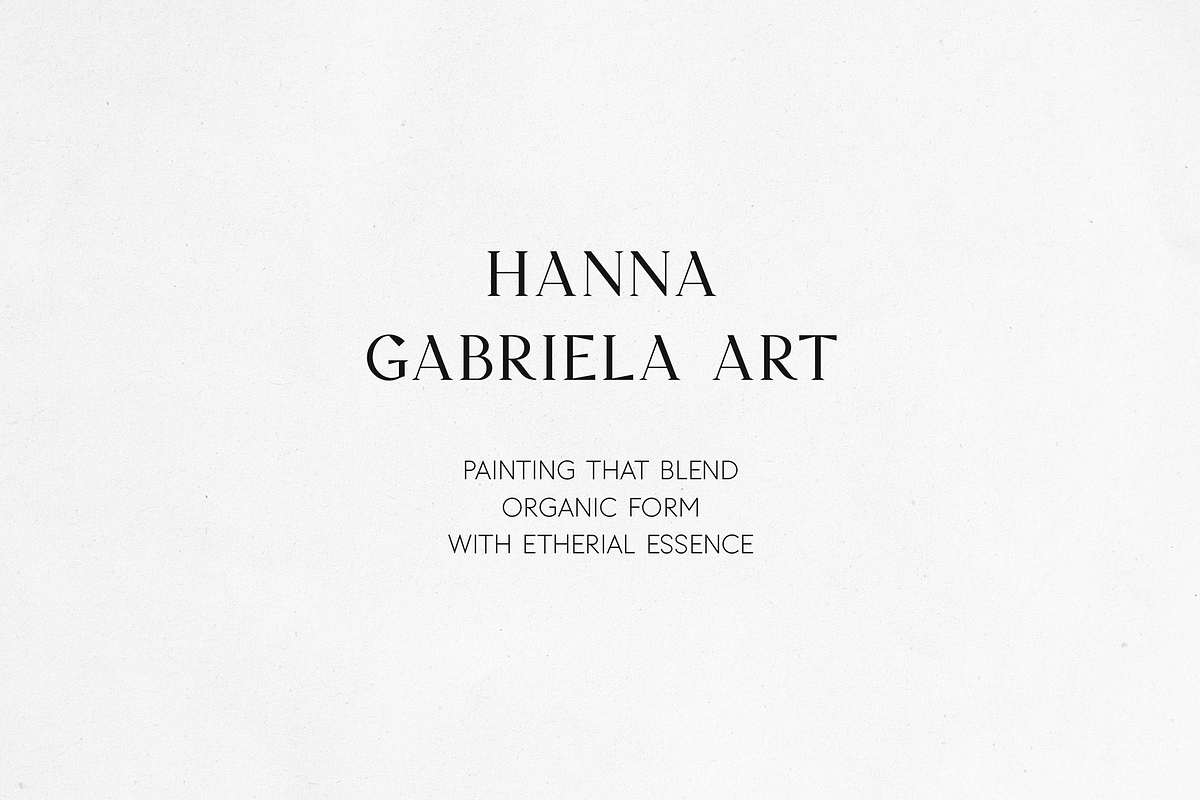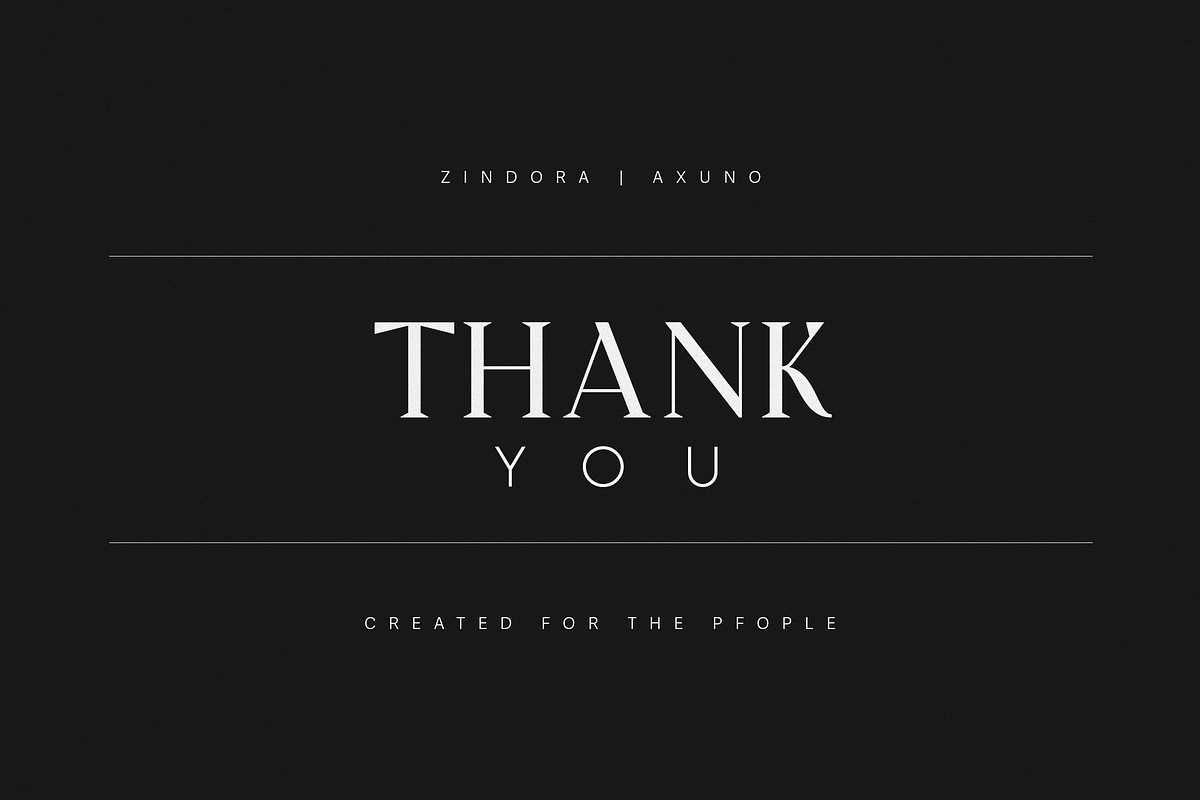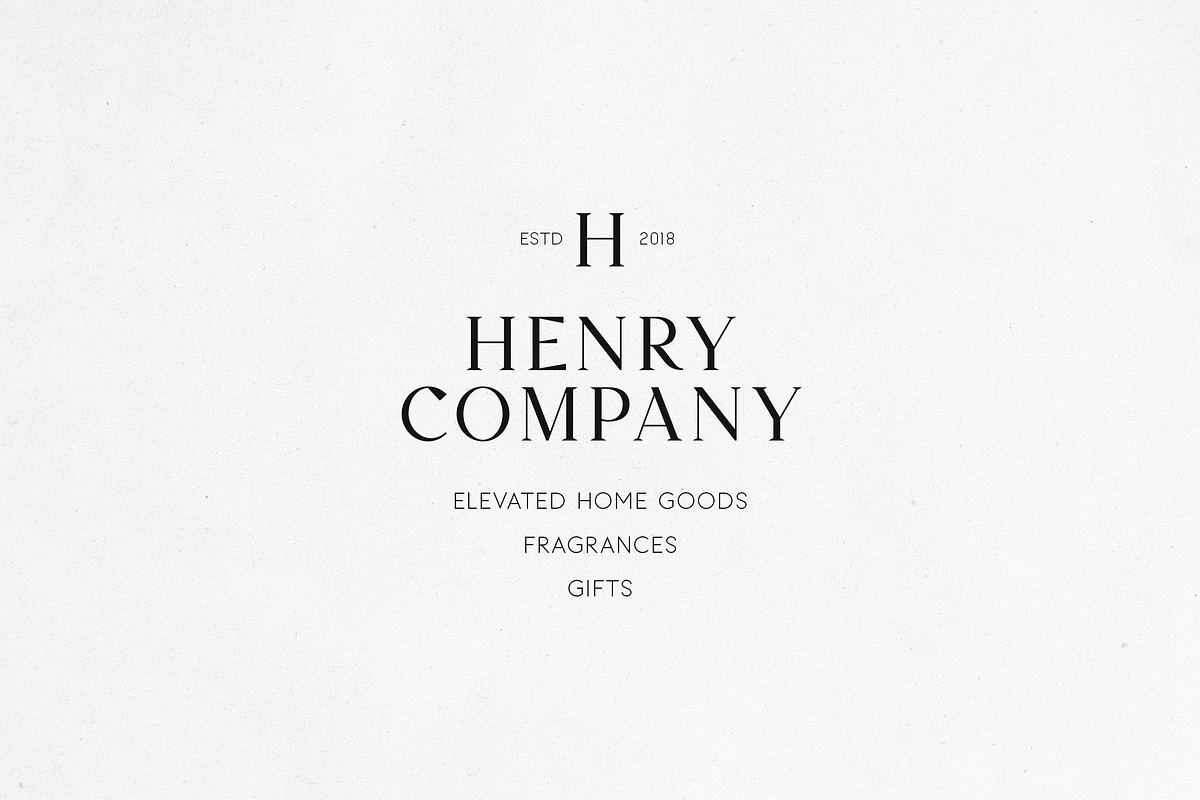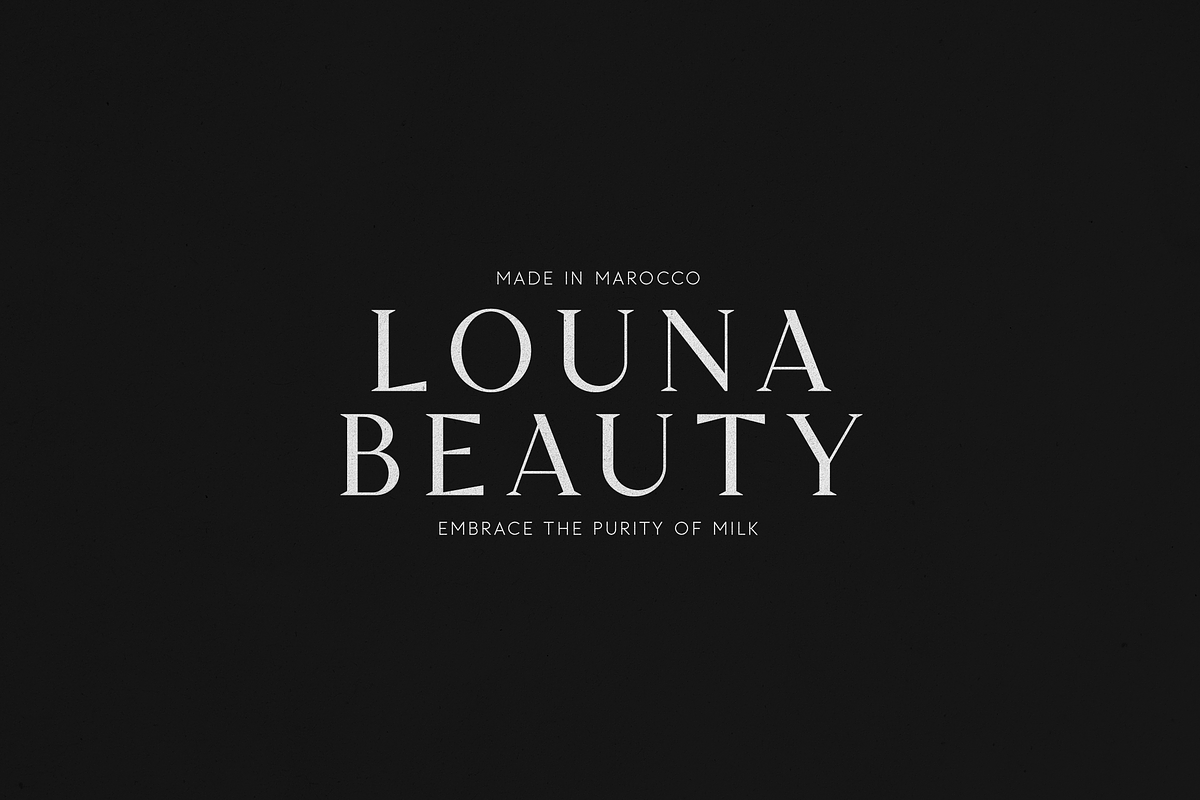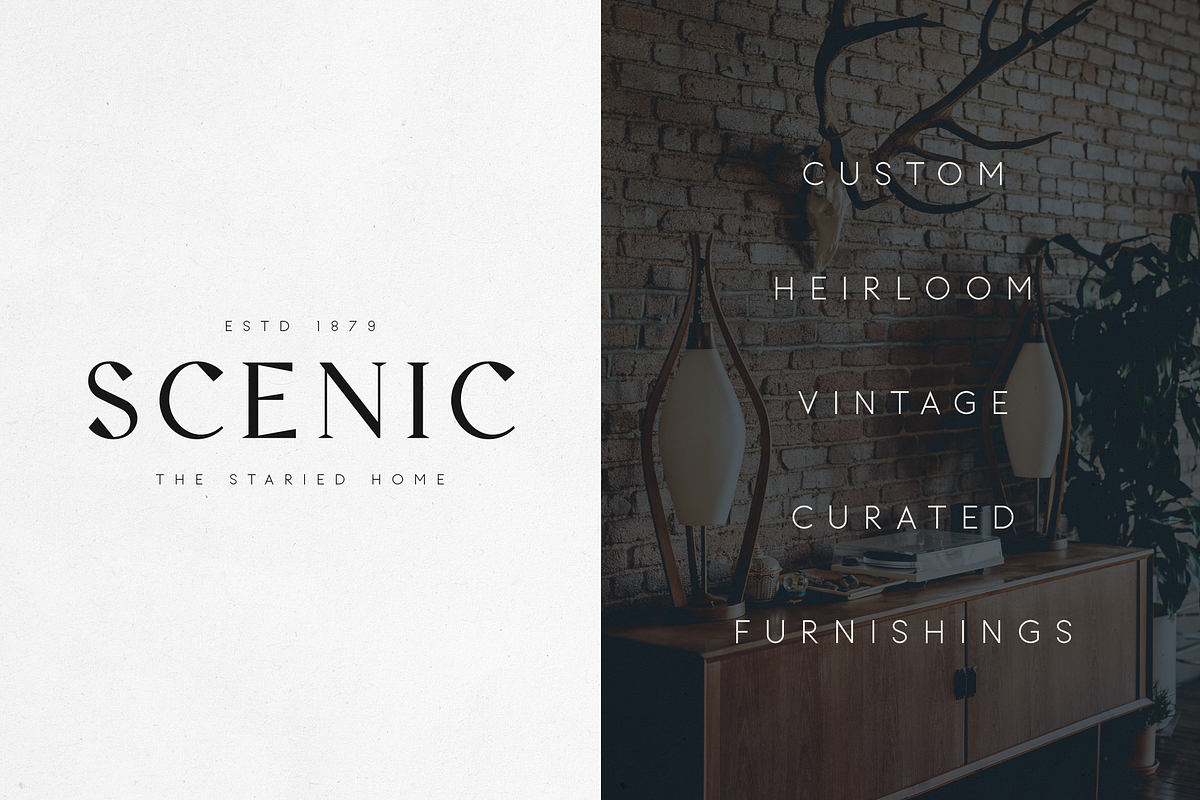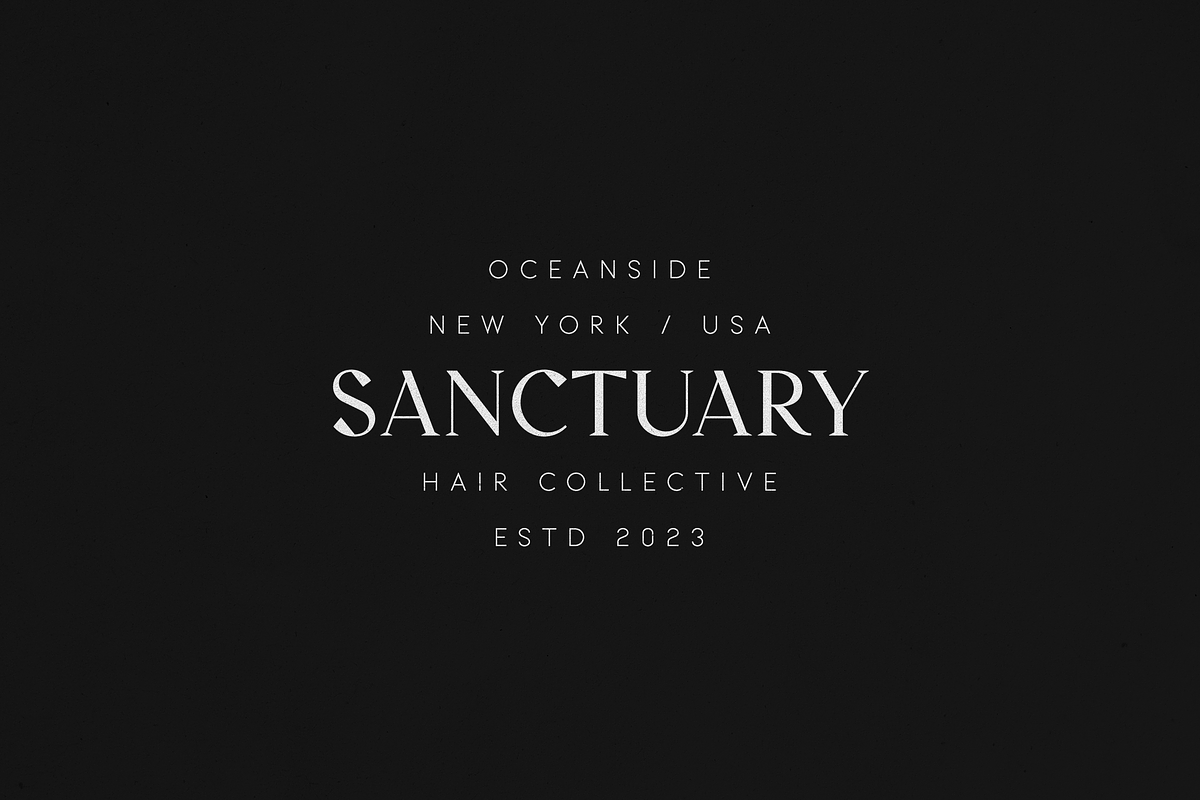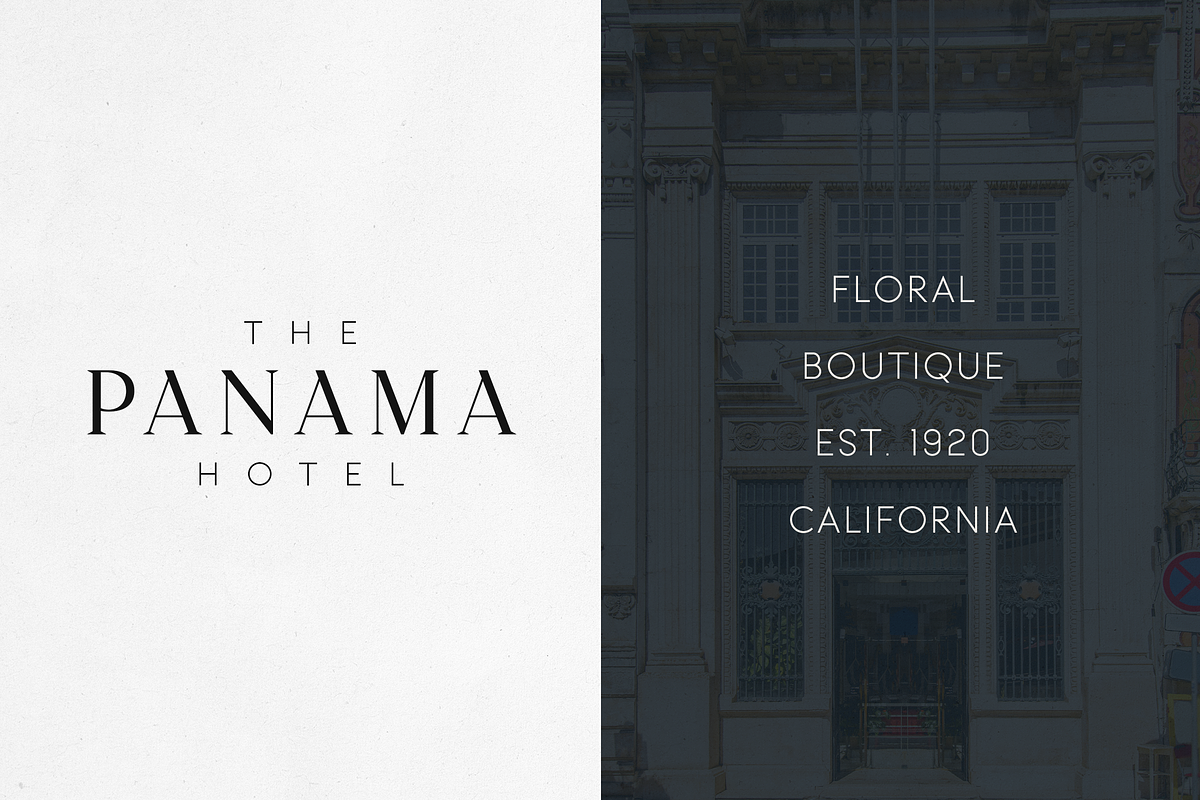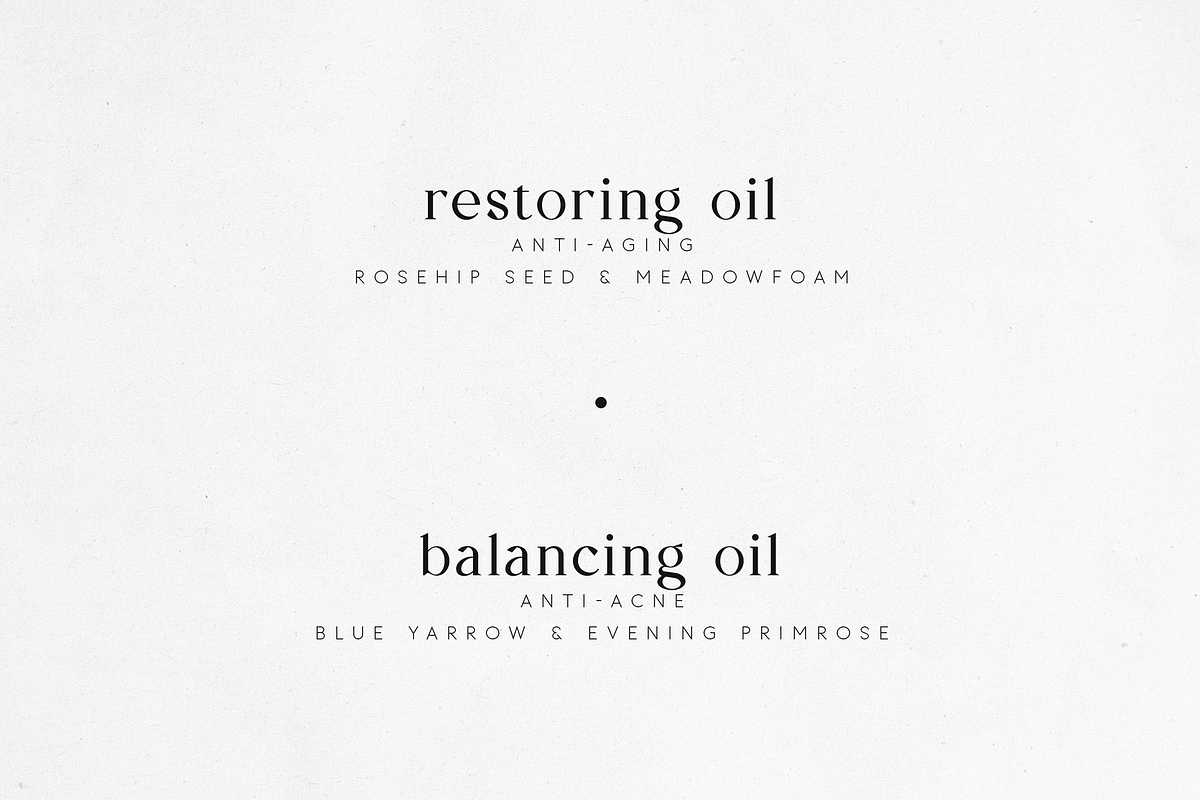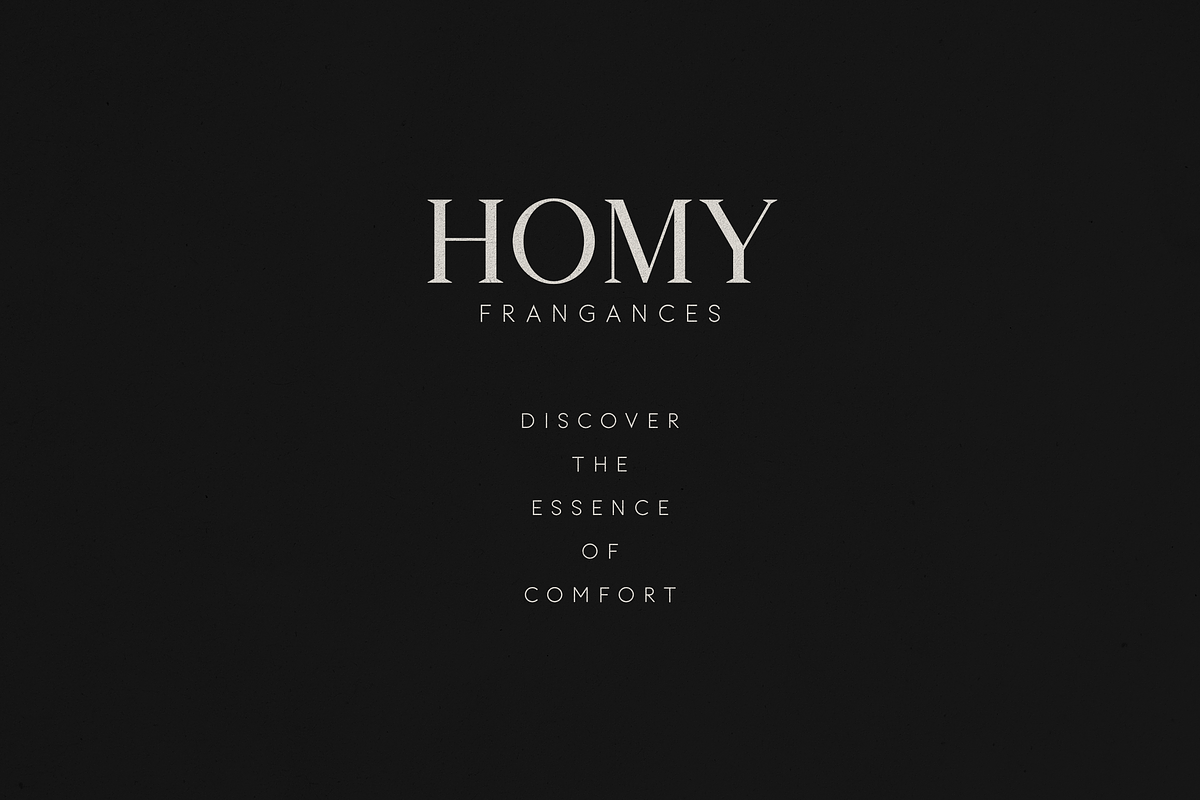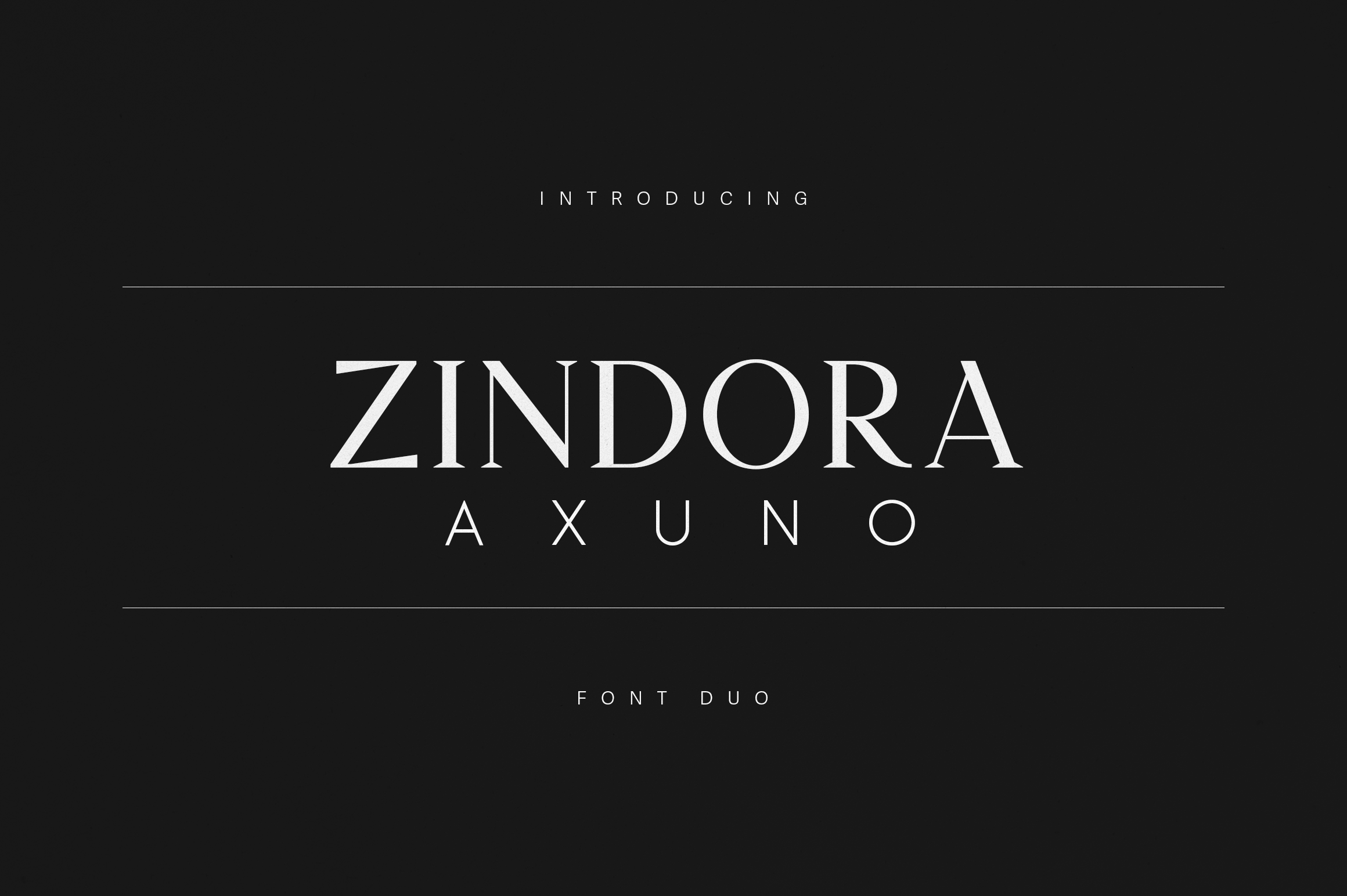
Zindora & Axuno – Elegant Font Duo
Refined. Sophisticated. Timeless.
Zindora & Axuno is a luxurious serif and sans-serif duo crafted for modern brands seeking effortless elegance. Zindora brings classic editorial grace with its high contrast and delicate serifs, while Axuno complements it with clean geometric minimalism — together forming a perfect balance of sophistication and modernity.
Ideal for branding, packaging, editorial design, beauty products, fashion labels, and upscale hospitality, this duo adds instant prestige to any project. Whether you’re creating a logo for a boutique, designing perfume packaging, or building a minimalist website, Zindora & Axuno delivers a versatile, premium aesthetic that captivates.
- Serif & Sans-serif pair for modern brand harmony
- Uppercase, lowercase, numbers & punctuation
- Perfect for logos, packaging, magazines, and invitations